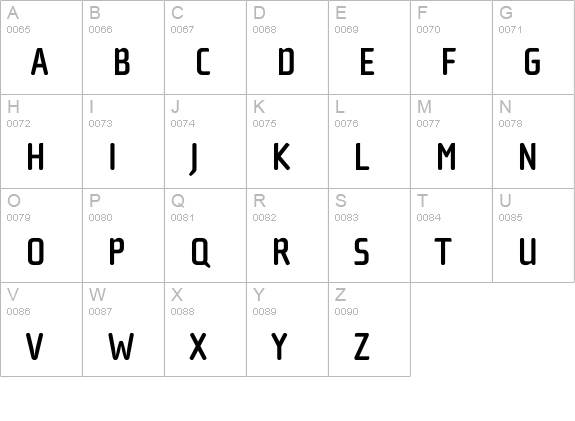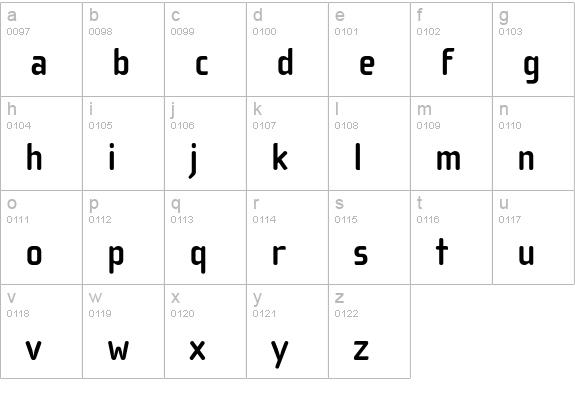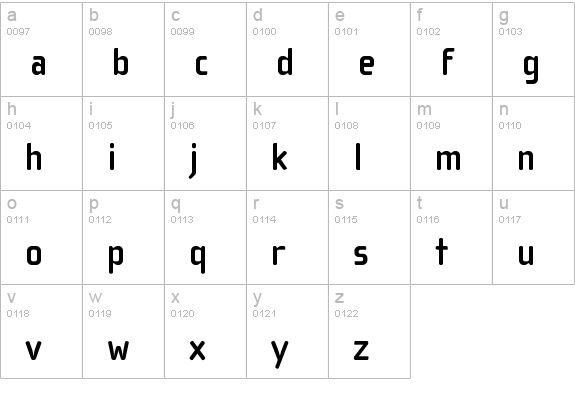
ChollaSansBold Font Details
ChollaSansBold is a modern and versatile font that exudes confidence and strength. Its bold and clean design makes it perfect for grabbing attention and making a statement. Whether used for headlines, logos, or branding materials, ChollaSansBold is sure to leave a lasting impression. The font is freely available to download at FontsMarket.com, making it easily accessible for designers and creatives looking to elevate their projects. With its strong presence and timeless appeal, ChollaSansBold is a must-have addition to any font collection.